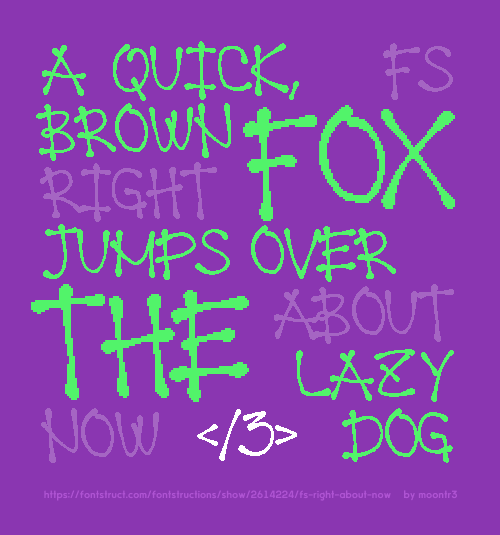
Comment by moontr3 25th january 2025
It's everywhere.
Comment by figureone 25th january 2025
Nice! This looks both like ink and Q-tips. :)
Comment by Cookielord 25th january 2025
Looks great!
Comment by V. Sarela (Yautja) 25th january 2025
Wow!
Comment by anonymous-2552875 25th january 2025
by the way i've also been thinking about adding cyrillic
Comment by moontr3 26th january 2025
Damn man, I innitially missed this one upon its arrival.. But man, what an absolute masterpiece!! 10/10 ain't gonna do justice to this gem. Such a fresh breath of personalized character that went in each and every single glyph. Amazing stuff.
Comment by Sed4tives 26th january 2025
Comment by moontr3 26th january 2025
Comment by ImLorenzo999 5th february 2025
This is beautiful
Comment by thalamic 14th february 2025
Congratulations! FontStruct Staff have deemed your FontStruction worthy of special mention. “fs right about now” is now a Top Pick.
Comment by Rob Meek (meek) 14th february 2025
I have an art tablet! 10/10 for font AND making it look like ink.
Comment by davilarichard683 15th february 2025
Круто! the font creates the effect of painting with spray paint. therefore, it would also be interesting to see a variant with pixel paint splashes on the ends and smudges.
Comment by Dmitriy Sychiov (Sychoff) 15th february 2025
Comment by FontGuy34 17th february 2025
This is excellent
Comment by stinks 25th february 2025
Excellent
Comment by Handss 27th february 2025
Japanese in WIP
Comment by Stephen23 10th april 2025
starlight
Comment by dc.vus 14th april 2025
nice work
Comment by Mythhand (Car886980) 6th may 2025
Comment by dianna@91 29th june 2025
Cool.
Comment by ImLorenzo999 23rd october 2025